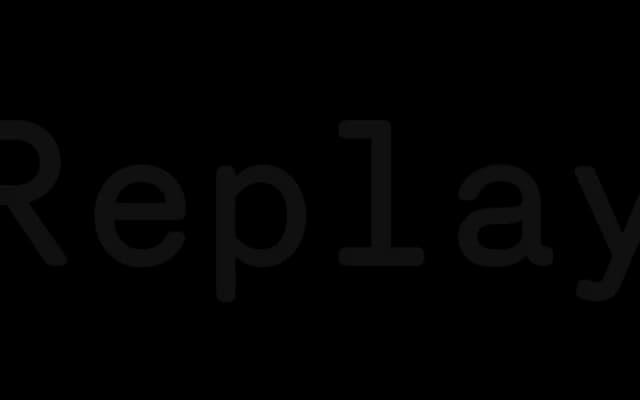
Merkury
Radim Pesko · Radim Peško · 2001
A rounded geometric sans by Radim Peško, first sketched in 2001 and refined over many years into four weights with italics and a monospaced variant.
Originally conceived for a 2001 exhibition of self-initiated graphic design projects, Merkury has been redrawn and customised across numerous commissions before settling into its current form. Four weights run from Light to Bold, each with a matching italic, and an additional Monospaced style is drawn from the Medium weight. The family covers both Latin and Cyrillic scripts, and its quietly rounded character gives it personality without veering into novelty.
Merkury's rounded character and clean construction place it firmly in the geometric sans tradition, with a distinctive softness that sets it apart from purely neutral grotesques.